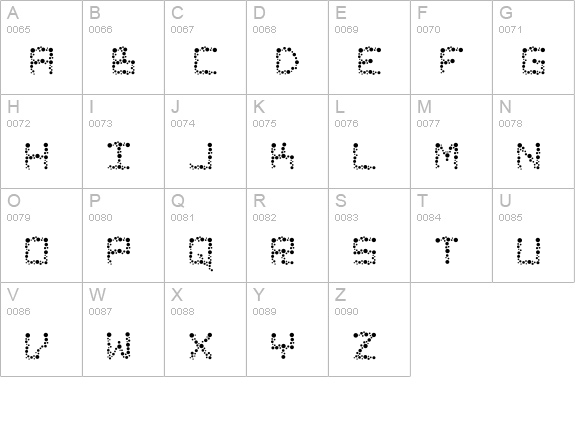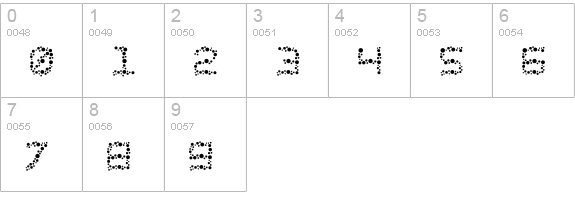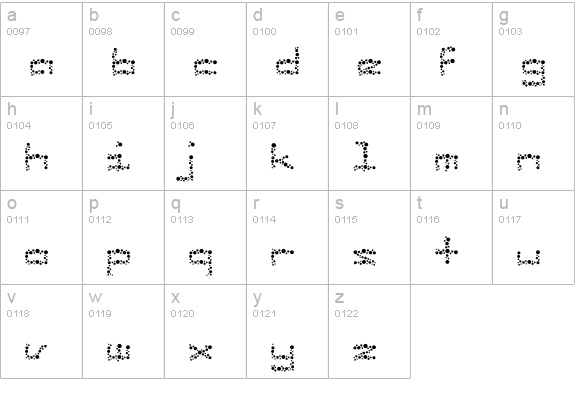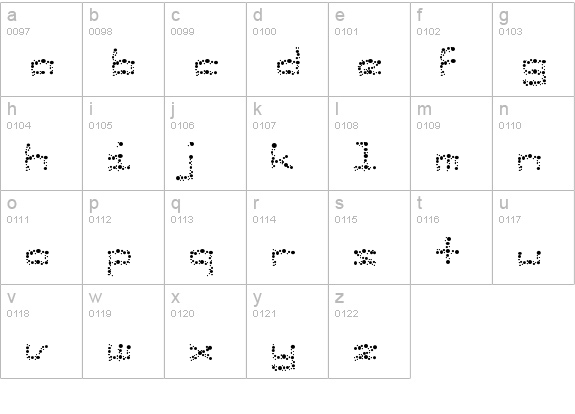
Sunspots AOE Font Details
Sunspots AOE is a stunning display font that captures the essence of warmth and brightness just like the sun itself. Its unique design features intricate patterns that resemble sunspots, adding a touch of creativity and playfulness to any project. This font is perfect for headlines, logos, posters, and more, making your text stand out with its eye-catching charm. The best part is that Sunspots AOE is completely free to download at FontsMarket.com. Now you can add a touch of sunshine to your designs without any cost. Don't miss out on this wonderful opportunity to enhance your projects with this beautiful and versatile font. Download Sunspots AOE today and let your creativity shine bright!